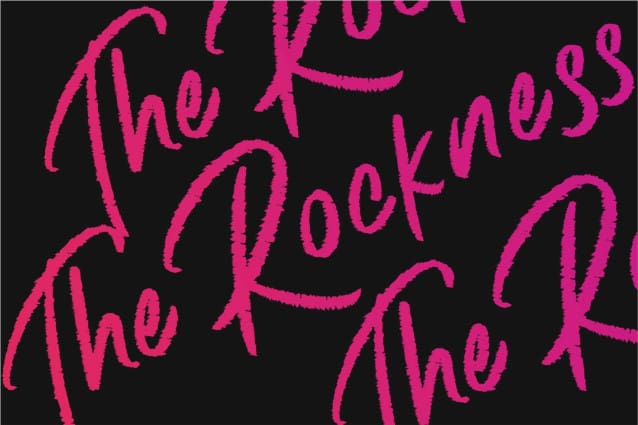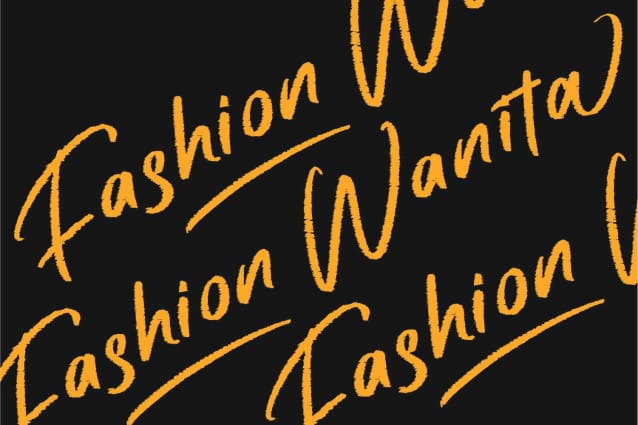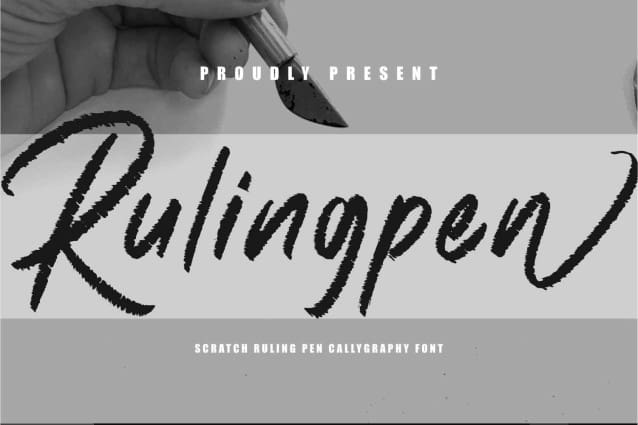
Rulingpen Brush Font
Rulingpen Brush Font, written directly with attractive organic Rulingpen. Can be applied to support product graphic display to make it more attractive and unique. This font is suitable for making previews and covers, street logo designs, street t-shirt designs and other graphic needs.